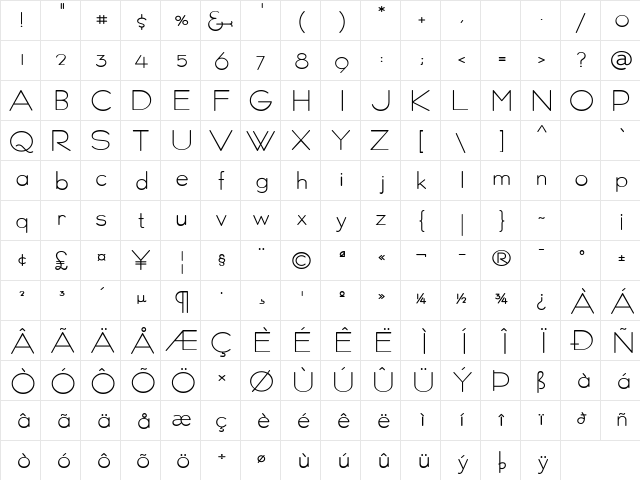
Persnickety HPLHS
Design Context for Persnickety Typeface
Persnickety is a composed and adaptable typeface that performs quietly and consistently across a wide range of design contexts.